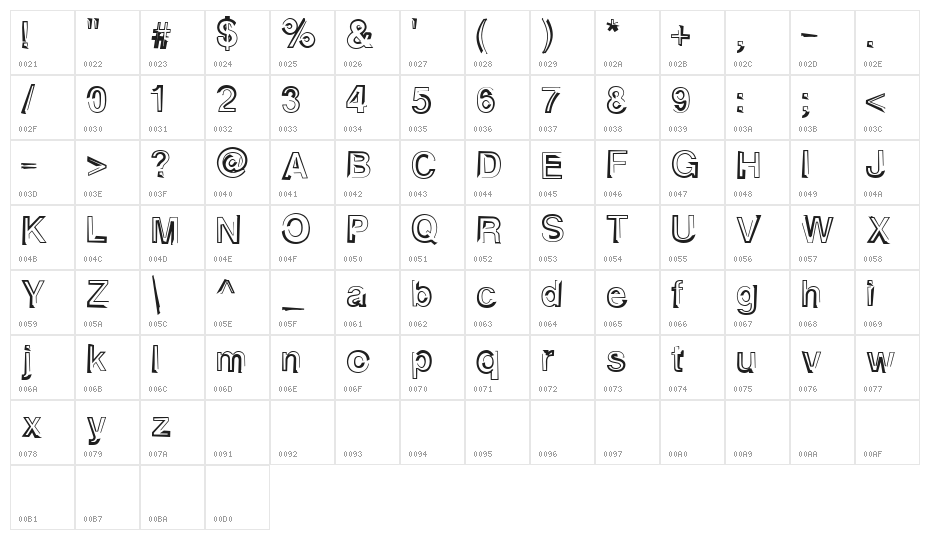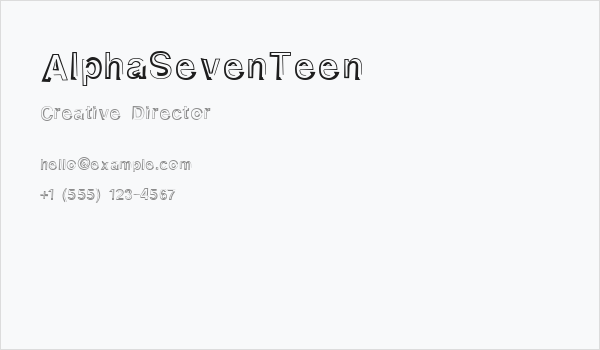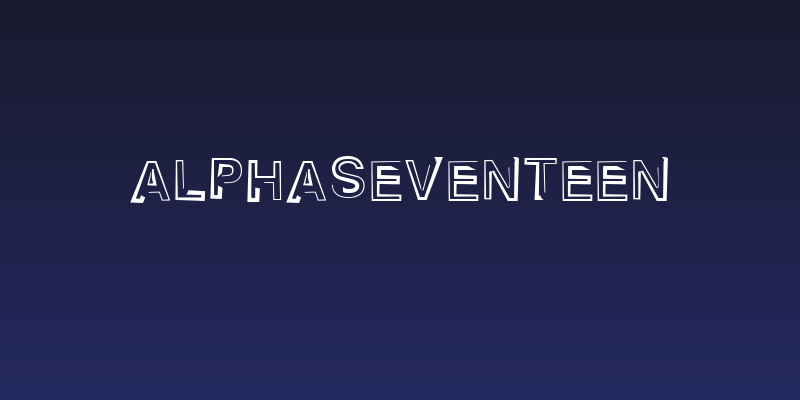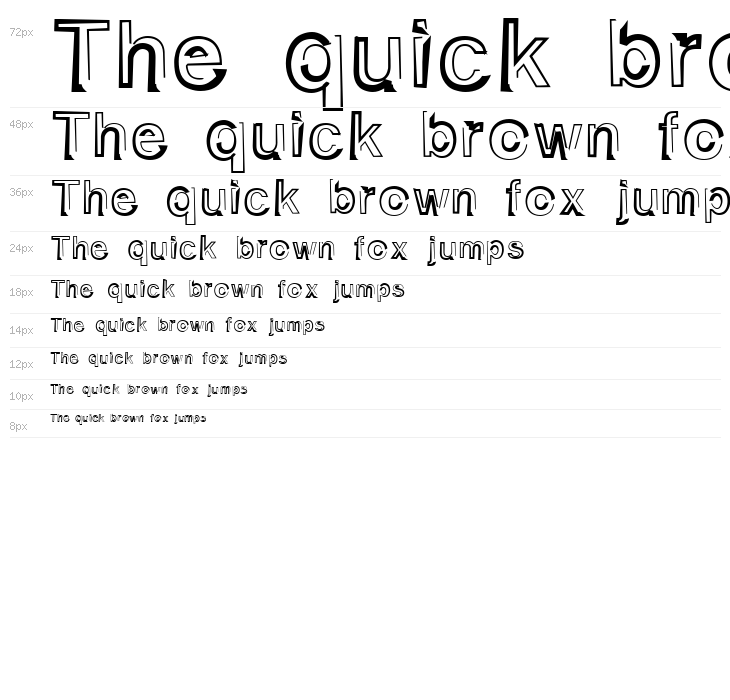
AlphaSevenTeen Font
AlphaSevenTeen Description
This font features a bold and dynamic style with a unique three-dimensional effect. The letters are outlined with a shadow that gives them depth and a striking appearance. The uppercase and lowercase letters maintain a consistent style, with clean lines and a modern aesthetic. The numerals and special characters follow the same design principles, ensuring uniformity across all elements. This font's boldness and distinctive look make it ideal for attention-grabbing designs.
| Proposed Projects | Ideal for posters, headlines, branding, and any design requiring a bold statement. |